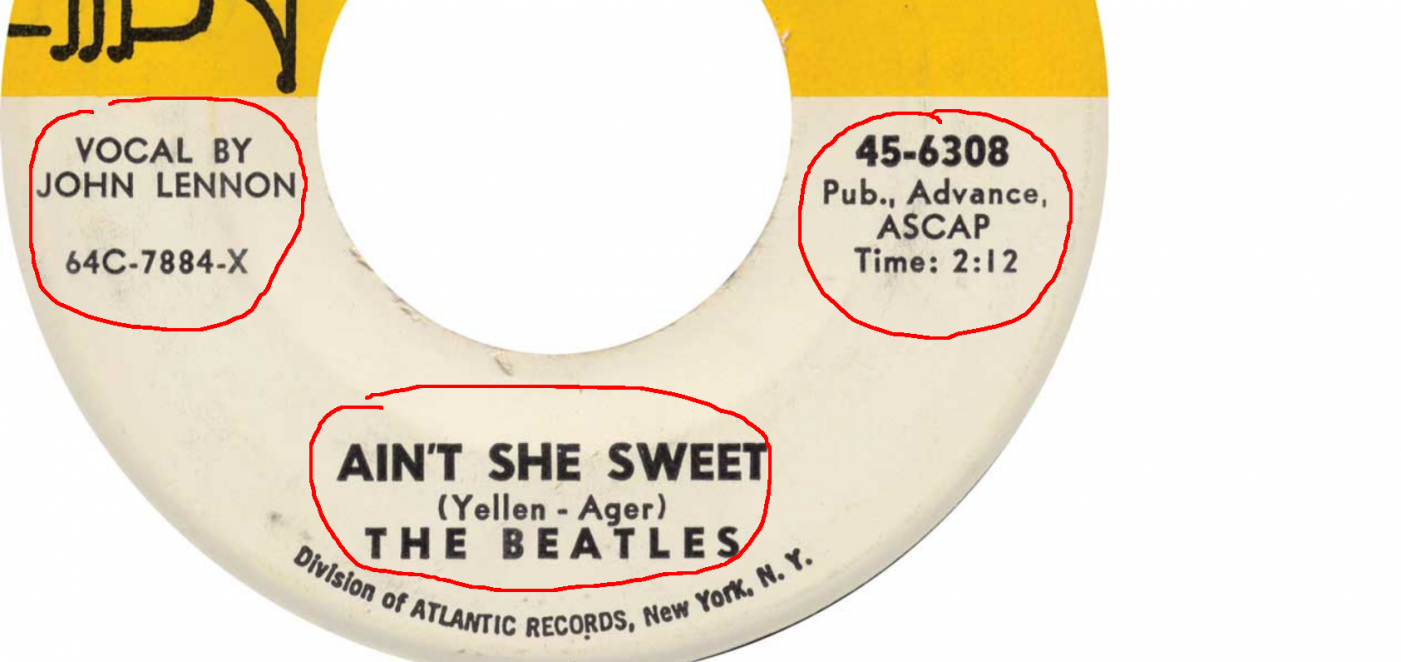
Atco Record Label font ID
The font I have marked. I believe it's the same one. Have searched a LOT but only part matches.5aaba3b21f450_laddaned(10).thumb.png.0e70c13b0dc60927a42c5dc4f4a7bcd6.png
Everything is very similar to 'Futura', until as Riccardo pointed out you get to the (g) in Ager.
Also take a look at the typeface 'Nobel'.